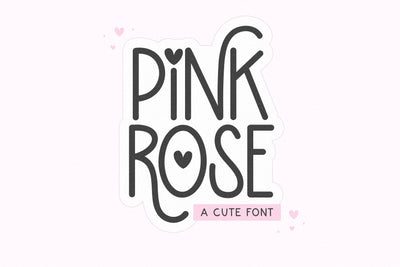
Pink Rose - Cute Valentine's Day Font
Pink Rose is a cute font that is perfect for your Valentine's Day designs - or any design!
*This is an all caps font*
Use capital letters to access the swash accents - A, H, J, K, M, N, R, V, W, Y, Z
Lowercase i = heart